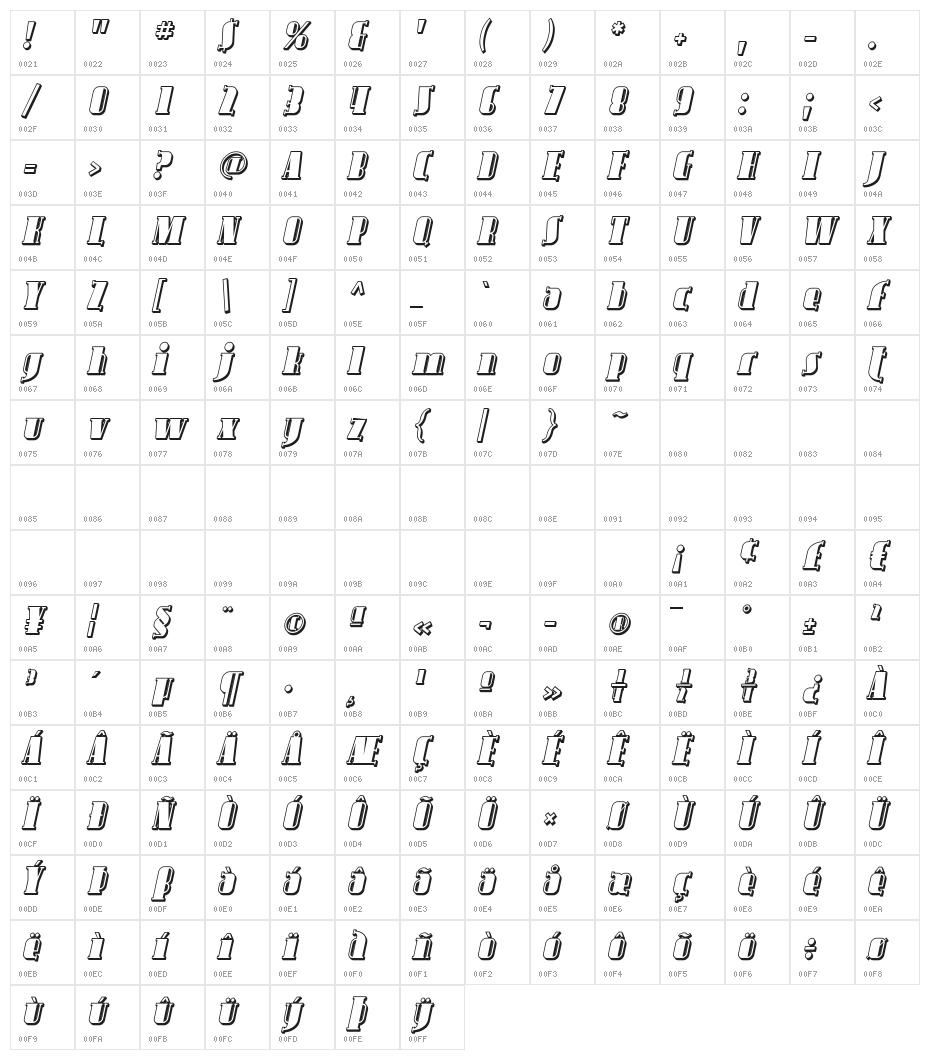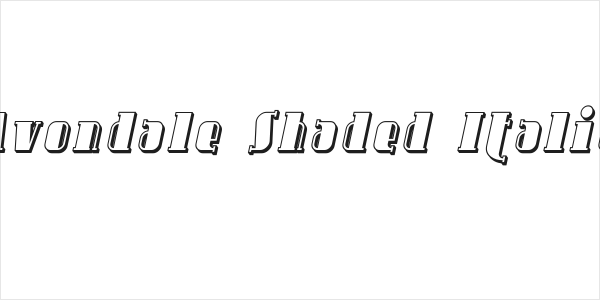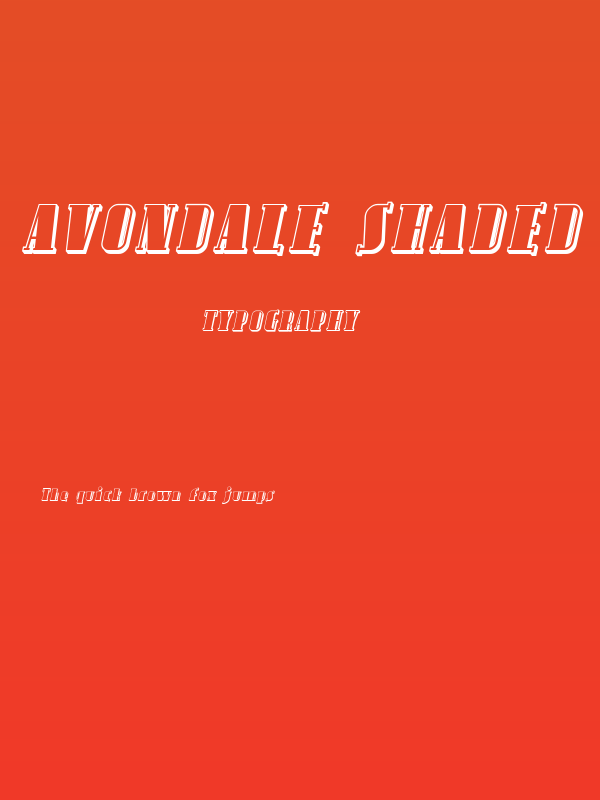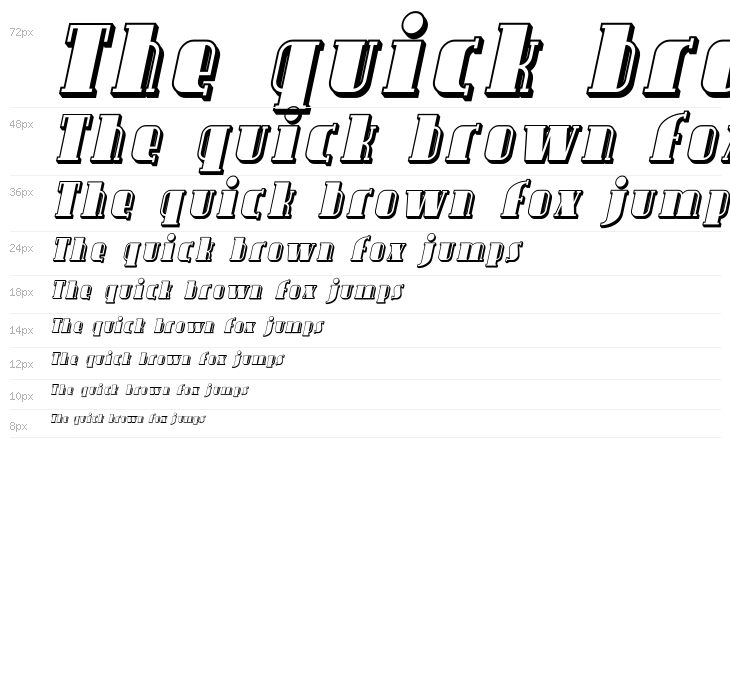
Avondale Shaded Italic Font
Avondale Shaded Italic Description
This font features a distinctive shaded design with an italic slant, giving it a dynamic and eye-catching appearance. The uppercase and lowercase letters are bold and prominent, with a three-dimensional effect created by the shading. The numbers and special characters maintain this style, ensuring consistency across all glyphs. The font's unique style makes it suitable for decorative purposes, adding a touch of elegance and sophistication to any project. Its boldness and shading make it stand out, ideal for titles and headings that require emphasis.